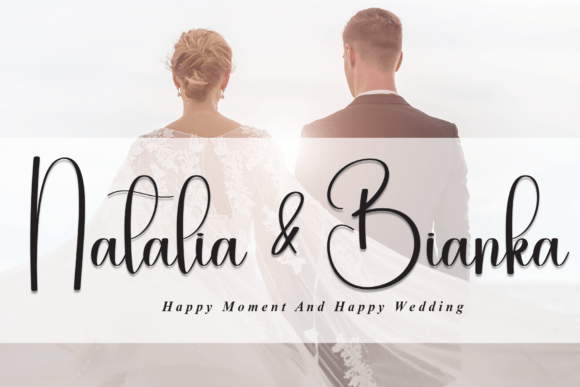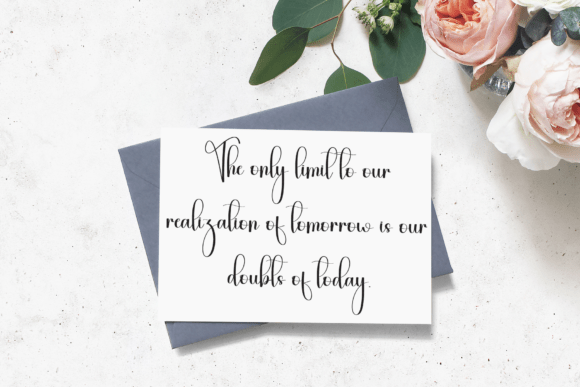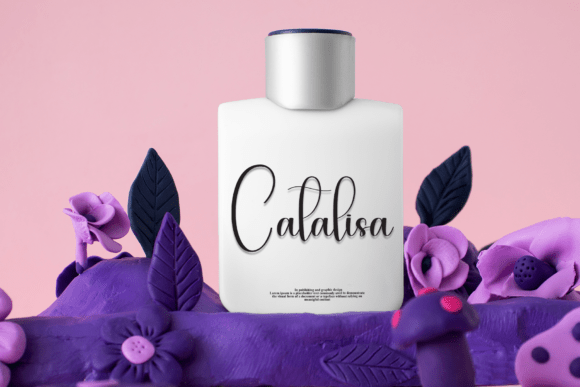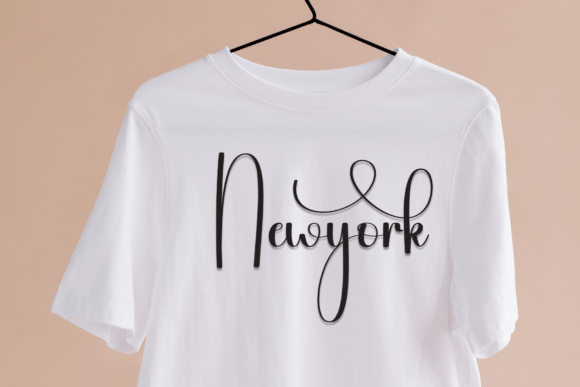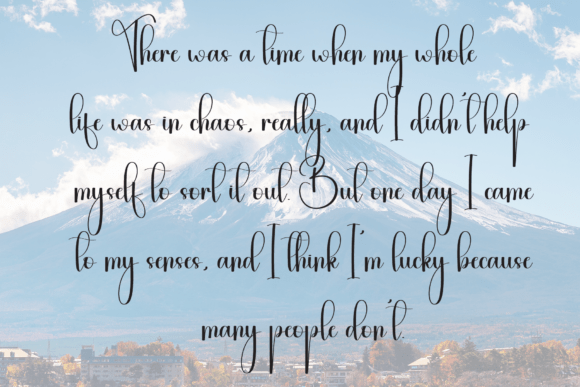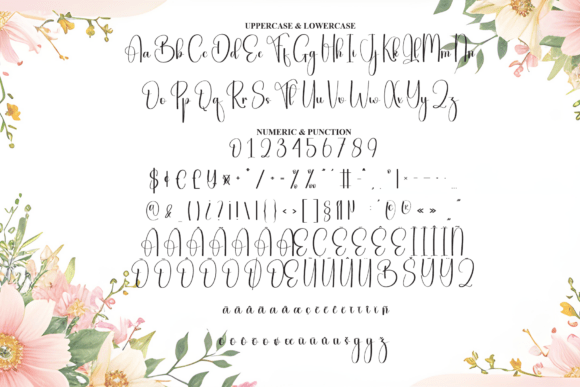
Introducing Background Font: Elevate Your Designs with Modern Elegance and Playful Charm
In the world of typography, a font can make or break a design. It’s the foundation upon which creativity is built, and the right choice can elevate a project from ordinary to extraordinary. For designers and crafters seeking a typeface that embodies both sophistication and whimsy, Background Font is an exceptional choice. This stylish handwritten script font seamlessly blends modern elegance with a playful touch, making it perfect for a wide range of applications.
The Essence of Background Font
Background Font is characterized by its fluid strokes and charming curves, which bring a personal and approachable feel to any design. Its unique blend of modern sophistication and playful charm makes it an ideal choice for projects that demand a touch of personality. Whether you’re creating a logo, designing packaging, or crafting invitations, this typeface adds a layer of warmth and creativity that is sure to captivate your audience.
Key Features of Background Font
- Fluid Strokes: The font’s fluid strokes give it a dynamic and organic feel, making it perfect for designs that require a sense of movement and energy.
- Charming Curves: The charming curves of Background Font add a touch of elegance and sophistication, making it suitable for high-end designs and luxury brands.
- Playful Touch: The font’s playful touch makes it perfect for designs that require a sense of whimsy and fun, such as children’s products or creative projects.
- Versatility: Background Font is incredibly versatile, making it suitable for a wide range of applications, from logos and packaging to invitations and digital media.
Design Applications for Background Font
Background Font’s versatility makes it an excellent choice for various design projects. Here are some of the most popular applications:
Logos and Branding
A well-designed logo is essential for any brand, and Background Font can help you create a memorable and impactful one. Its unique blend of modern elegance and playful charm makes it perfect for brands that want to stand out from the crowd.
Packaging Design
Packaging design is an essential aspect of product development, and Background Font can help you create eye-catching and effective packaging. Its fluid strokes and charming curves make it perfect for product labels, packaging inserts, and more.
Invitations and Stationery
Background Font is also an excellent choice for invitations and stationery. Its playful touch and elegant curves make it perfect for wedding invitations, birthday cards, and other special occasions.
Tips for Using Background Font Effectively
To get the most out of Background Font, here are some tips to keep in mind:
- Experiment with Font Sizes: Background Font looks great in various font sizes, so don’t be afraid to experiment and find the perfect size for your design.
- Pair with Other Fonts: Background Font pairs well with other fonts, so try combining it with a sans-serif font for a modern look or a serif font for a more traditional feel.
- Use it for Headlines and Titles: Background Font is perfect for headlines and titles, so use it to add a touch of elegance and sophistication to your design.
Background Font is an exceptional typeface that offers a unique blend of modern elegance and playful charm. Its fluid strokes and charming curves make it perfect for a wide range of design applications, from logos and packaging to invitations and digital media. Whether you’re a designer or crafter, Background Font is an excellent choice for anyone looking to add a touch of personality and sophistication to their projects.